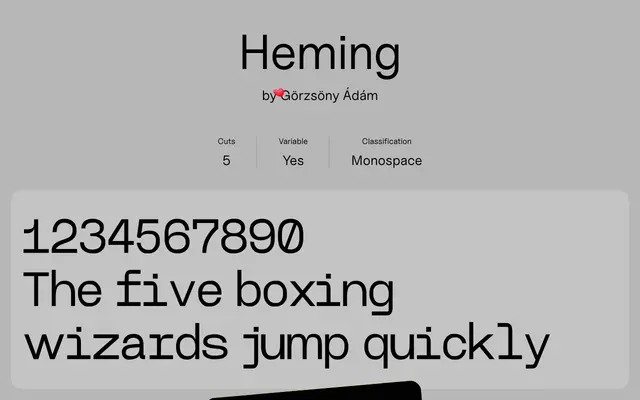
Heming
A five-cut monospace with variable font support, designed by Görzsöny Ádám and free for commercial and personal use.
A monospaced typeface from Görzsöny Ádám, offered in five cuts including a variable font. Available at no cost for both commercial and personal projects, though the specific licence terms are unspecified beyond a general free-to-use grant. Straightforward in scope with no detailed information on weight range or language coverage provided on the page.
Explicitly classified as Monospace by the foundry; a fixed-width typeface available in five cuts including a variable font.